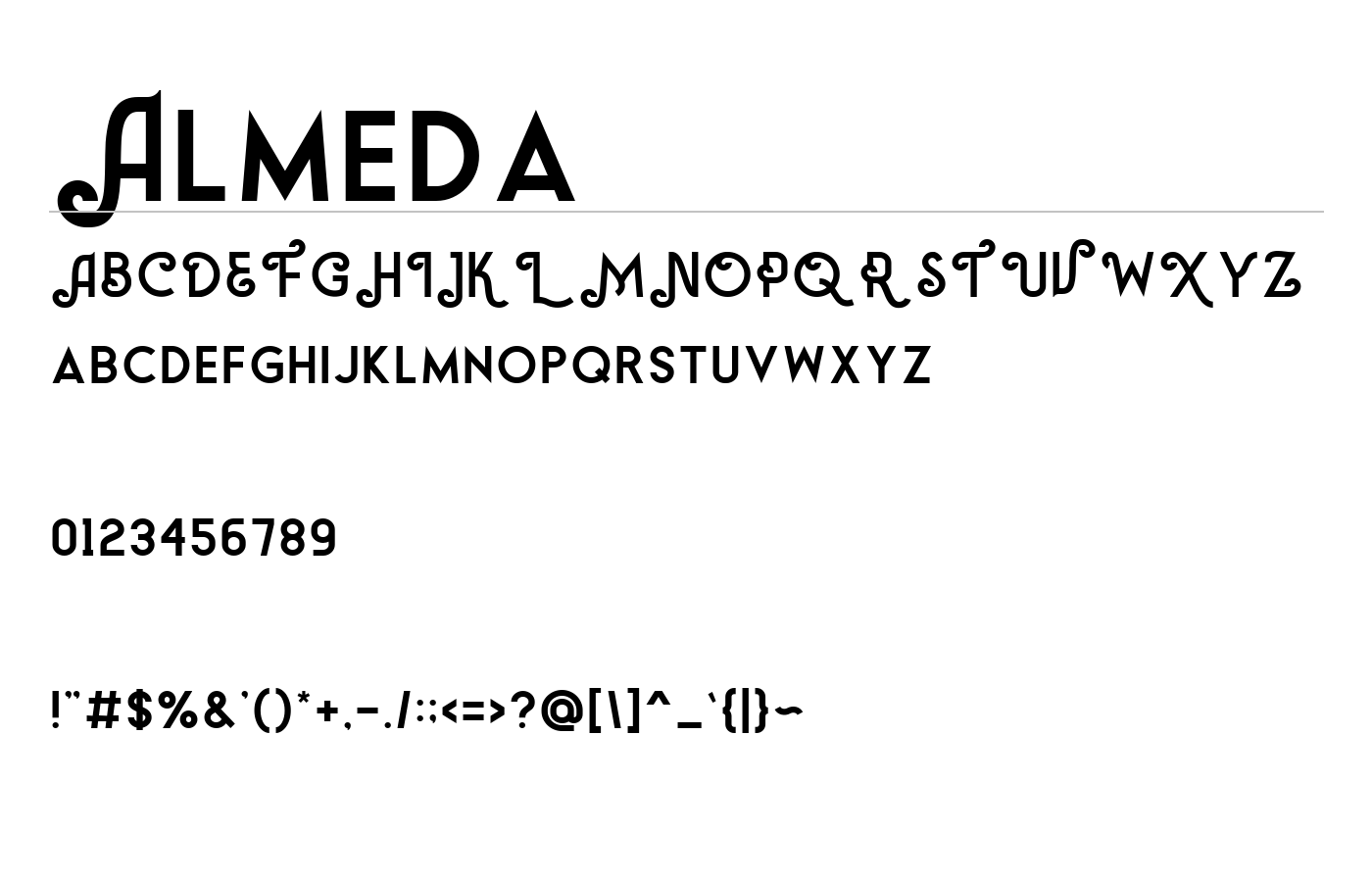
Almeda is a distinctive sans serif font with a modern, geometric feel combined with playful, decorative curls on alternate characters, adding a touch of elegance and uniqueness. It features a medium weight with clean lines and a high x-height, making it both readable and visually striking, ideal for eye-catching headlines and creative branding. This font works well for brands seeking a blend of contemporary style and artistic flair, perfect for logos, posters, and fashion-oriented designs.
Almeda Font
About Almeda Font